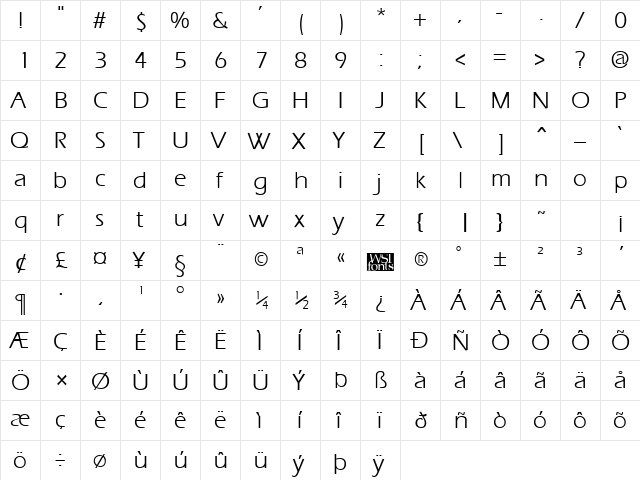
Ergoe Regular
Design Context for Ergoe Typeface
Ergoe is a composed and adaptable typeface that performs quietly and consistently across a wide range of design contexts.